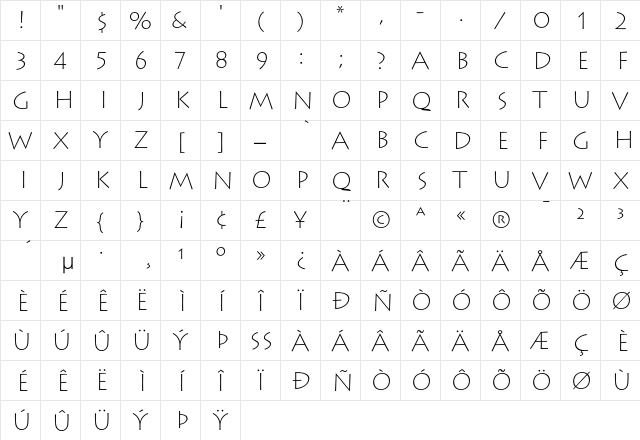
Lithos Extra Light Font Preview
Lithos Extra Light
Design Context for Lithos Typeface
Lithos takes a measured approach to typography — its balanced proportions and neutral character make it a reliable workhorse for both digital and print work. The delicate stroke weight brings airiness and refinement to layouts.
Pro Tip: Pair Lithos with a font of contrasting weight or personality to build a more expressive typographic hierarchy.